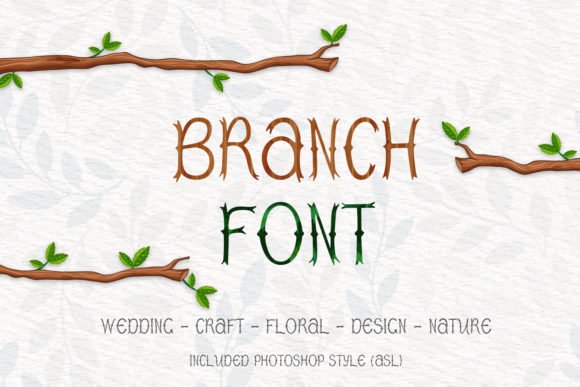
Discover the Natural Beauty of Branch Font
Have you ever found yourself lost in a dense forest, surrounded by towering trees and the soothing sounds of nature? It’s moments like these that spark our creativity and inspire us to bring the outdoors in. For designers, this means creating projects that not only reflect our love for nature but also evoke a sense of wonder and awe.
Enter Branch Font, a charming display font that embodies the essence of wood and the great outdoors. Designed to be versatile and fun, Branch Font is perfect for casual projects, nature-related themes, and environmental topics. With its unique blend of rustic charm and modern flair, this font is a valuable addition to any designer’s toolkit.
Branch Font Key Features
- Unique Character Set: Includes a unique set of glyphs, including ligatures, swashes, and ornaments, to add a touch of elegance and sophistication to designs.
Branch Font Review
Overall, I think Branch Font has a lot of potential, but it also has some areas that need improvement.
- Unique and Interesting Shapes: The Branch Font has some really unique and interesting shapes that can add a lot of visual interest to a design.
- Good Legibility: Despite its quirky shapes, the font is still relatively easy to read, especially at larger sizes.
- Good for Creative Projects: I think Branch Font would be a great choice for creative projects, like posters, flyers, and social media graphics.
- Not Suitable for Body Text: While the font is great for headlines and titles, it’s not the best choice for body text, as it can be a bit tiring to read.
- Limited Character Set: The font doesn’t have a complete character set, which can be a problem if you need to typeset a lot of text in the font.
- Not Versatile: While the font is great for creative projects, it’s not very versatile and can be a bit too “out there” for some designs.
I think Branch Font is a great choice for designers who want to add a bit of whimsy and personality to their designs. However, it’s not a good choice for every project, and it’s not a font that I would use for everyday body text. With a bit more development, I think Branch Font could be a really great addition to any designer’s toolkit.
The Branch Font is a versatile font that can be used in a variety of contexts, including:
- Infographics and data visualizations
- Print materials and marketing collateral
Some tips for getting the most out of the Branch Font include:
- Using it in combination with other fonts to create a visually appealing hierarchy
- Experimenting with different font sizes and styles to create emphasis
- Using the font in a variety of contexts to create a cohesive brand identity
Playfair Display is a luxurious, high-end serif font that adds a touch of sophistication to any design. It’s ideal for use in titles, headings, and body text where a sense of elegance is desired. Unlike Branch Font, Playfair Display has a more traditional and formal feel, making it suitable for high-end brands, luxury products, and fine art.
Great Vibes is a modern script font that conveys a sense of creativity and playfulness. It’s perfect for use in designs where a sense of fun and experimentation is desired. Compared to Branch Font, Great Vibes has a more casual and relaxed feel, making it suitable for brands that want to appear friendly and approachable.